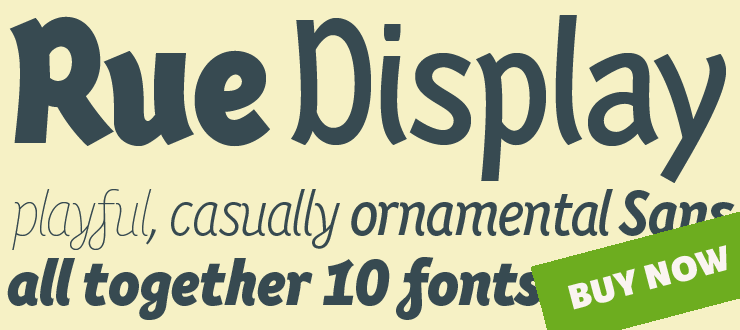
Adelle
A versatile and elegant multi-purpose Slab Serif with personality.
Alizé
A three-weight typeface inspired by the chancery italic of the 16th century.
Athelas
An expressive and elegant typeface modeled on its classic ancestors.
Bree
A spirited and rhythmic upright italic, ideal for display use.
Cora
A versatile and highly legible Sans with some contrast.
Crete
An unusual Slab Serif, great for headlines or short texts.
Edita
A contemporary book typeface with a soft and warm touch.
Etica
A strong, yet delicate Sans, suitable for a vast variety of applications.
Givry
A lively and delicate blackletter, modeled on a bâtarde flamande.
Karmina
A highly legible and economic typeface, perfect for newspapers.
Karmina Sans
A versatile and vivid companion Sans to Karmina Serif.
Maiola
A contemporary, yet classic Serif with calligraphic nuances.
Ronnia
A friendly humanist Sans Serif, perfect for editorial use.
Rue Display
A playful, organic display font, perfect for packaging, headlines and advertising.
Skolar
A robust but playful and lively design, perfect for long text settings.